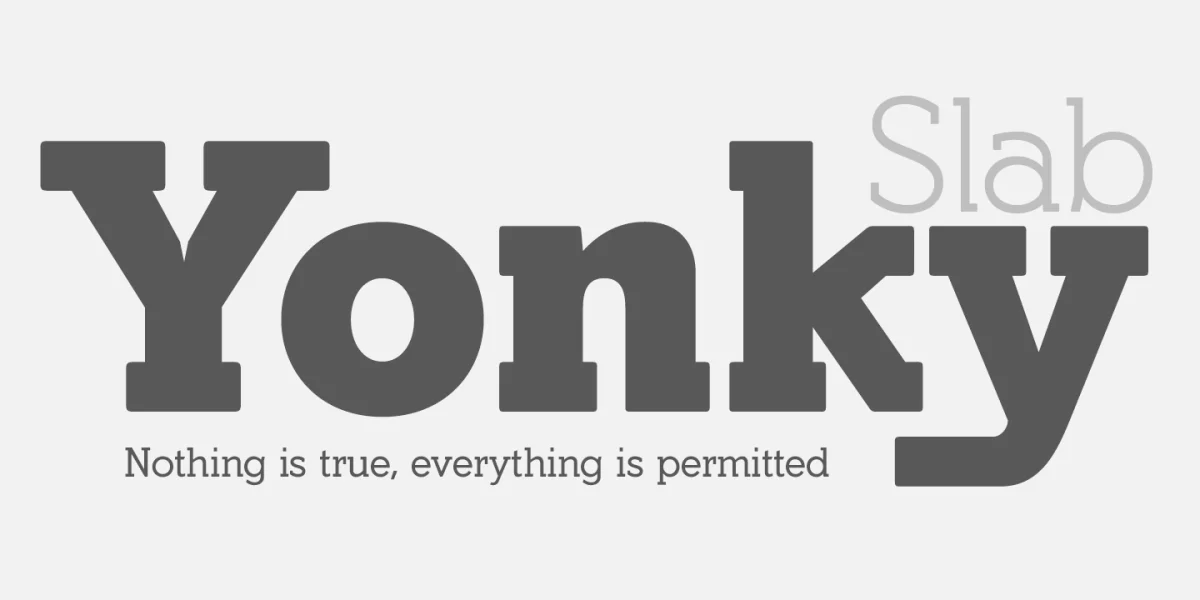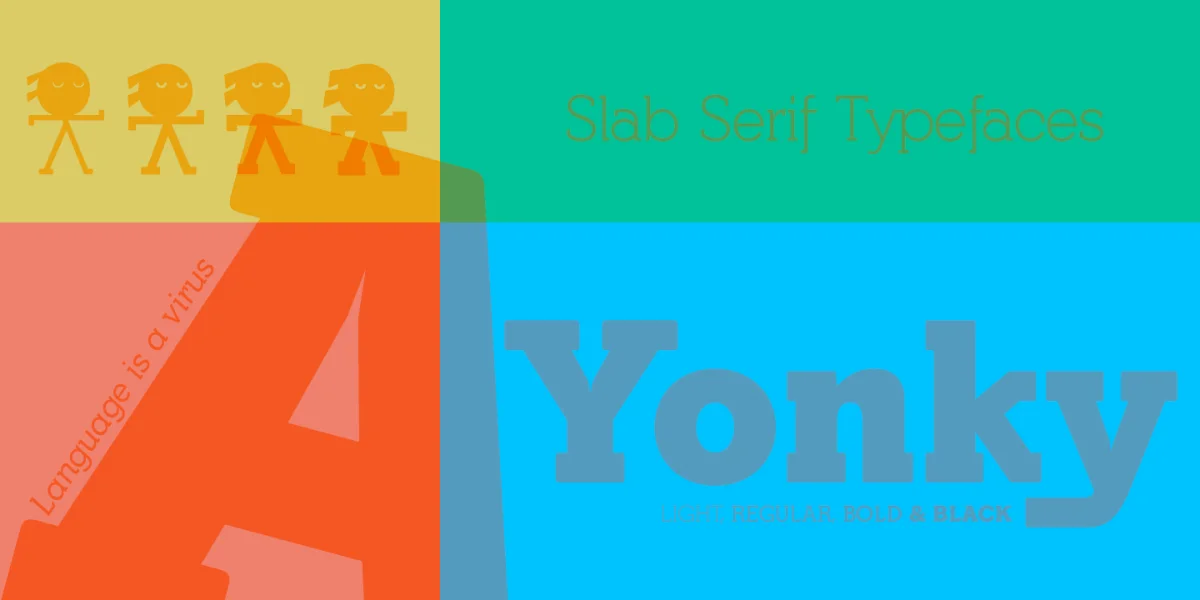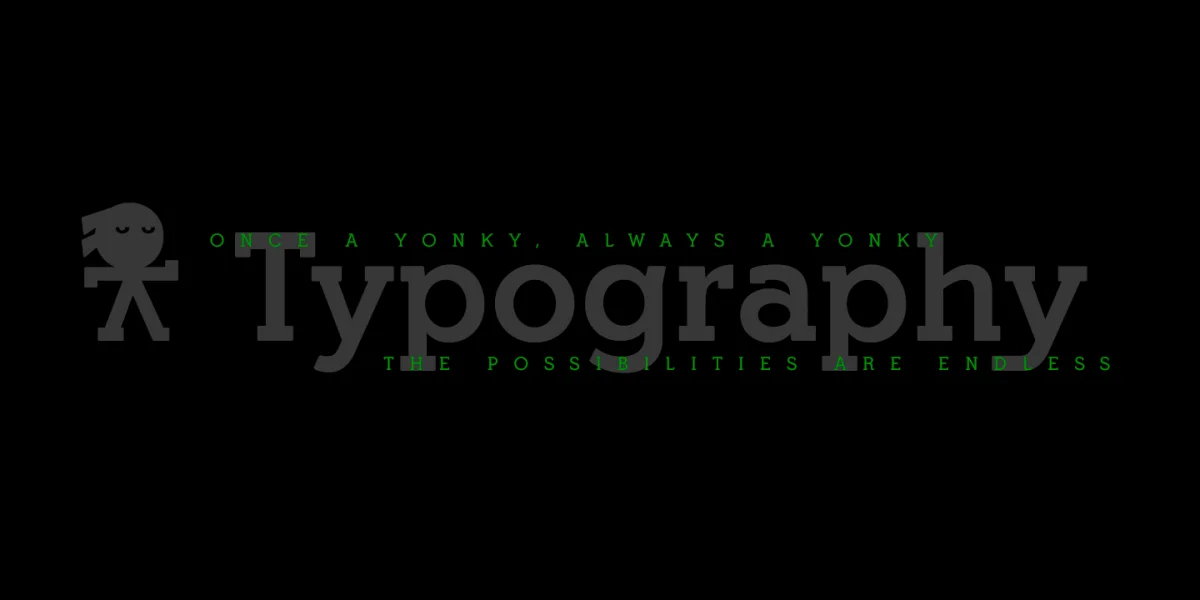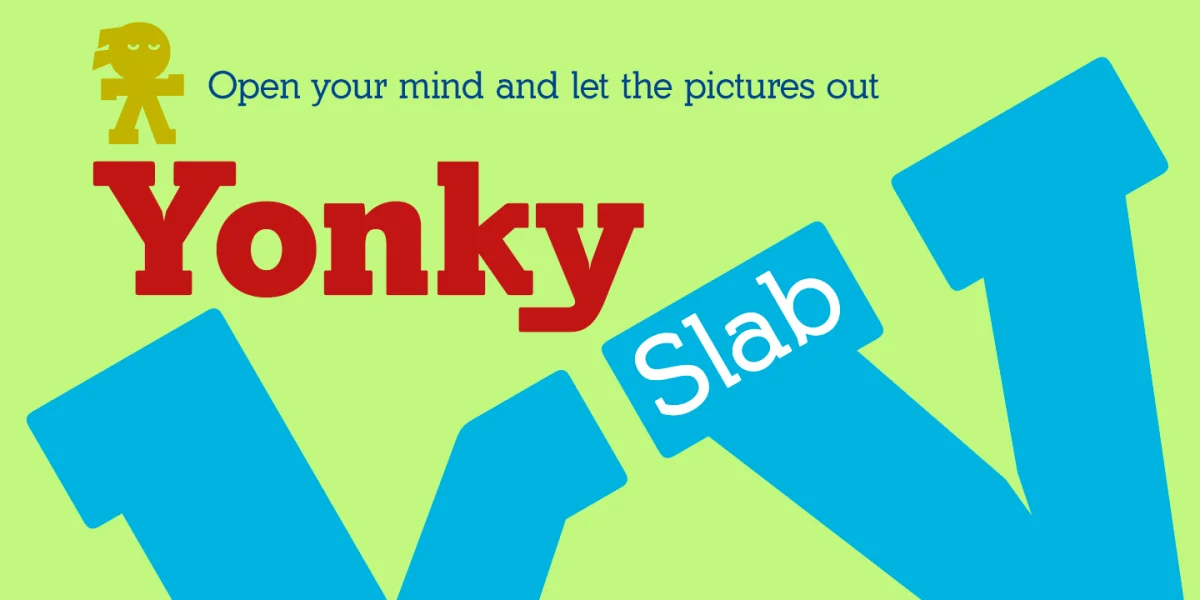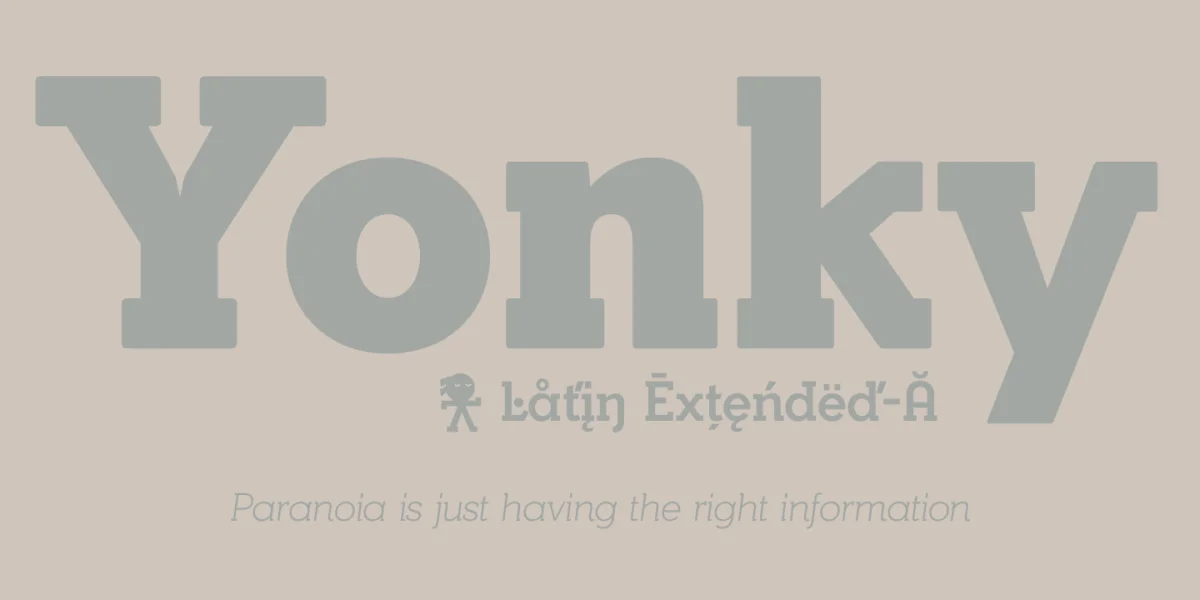
Yonky Slab is a family of 8 neo-grotesque typefaces that I present in four weights: Light, Regular, Bold and Black plus their corresponding versions of true italics. They are typographies heiresses of the Egyptian types, emerged at the beginning of S. XIX.